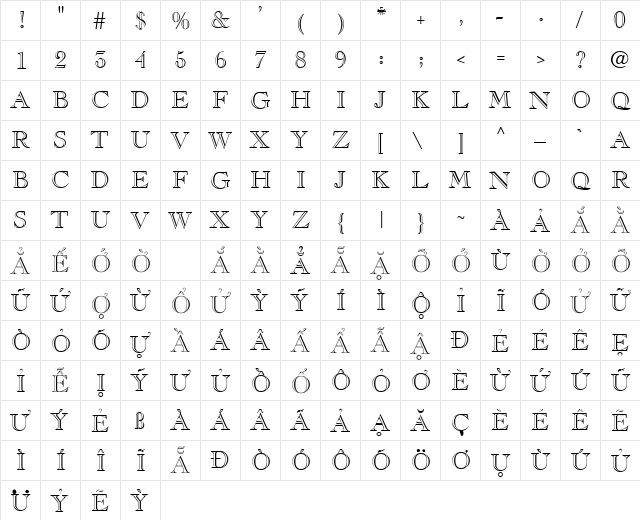
VPS Quang Tri Hoa Regular
VPS Quang Tri Hoa is a composed and adaptable typeface that performs quietly and consistently across a wide range of design contexts.